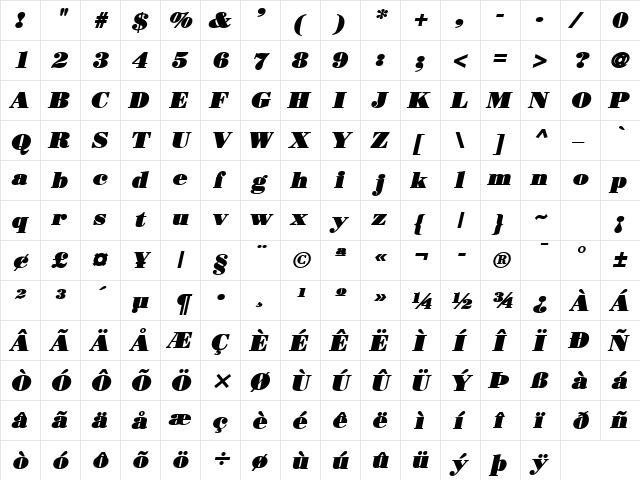
Beau BoldItalic
Design Context for Beau Typeface
Beau is a composed and adaptable typeface that performs quietly and consistently across a wide range of design contexts. Its italic angle brings a sense of urgency and motion to the letterforms. Its bold stroke weight gives it real presence on the page.
Pro Tip: Use Beau for emphasis, pull quotes, and subheadings where its slanted energy can add rhythm to the layout.